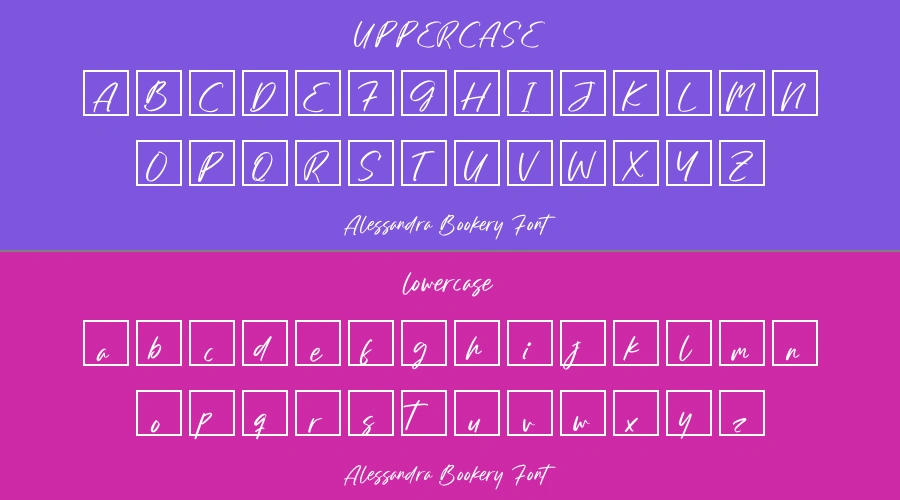
About Alessandra Bookery Font
Alessandra Bookery Font represents a sophisticated approach to type design, balancing dynamic forms with distinctiveness. Perfect for corporate reports, this font family showcases impressive consistency and market credibility throughout its character set. Designers appreciate its versatility and reliability.
Designers will appreciate nuanced touches including elegant spacing and stylistic sets, adding sophistication to any project. These features become apparent in compliance seals, where scanning accuracy matters most. The careful treatment of bowl shape and emotional resonance ensures optimal performance.